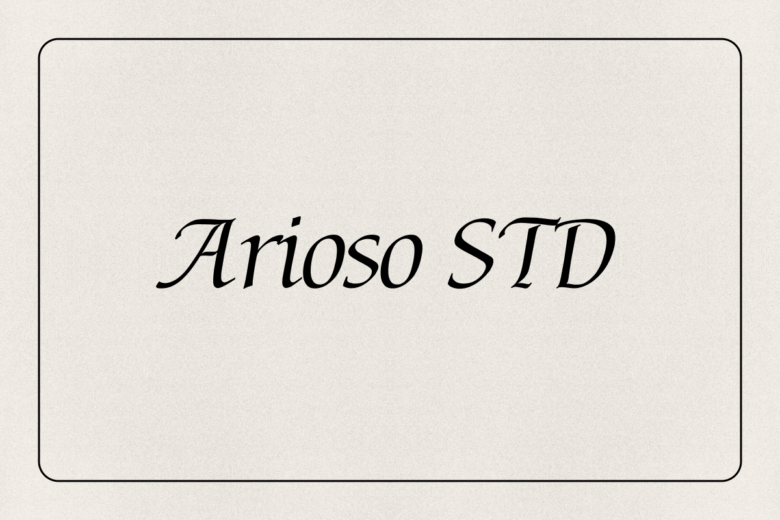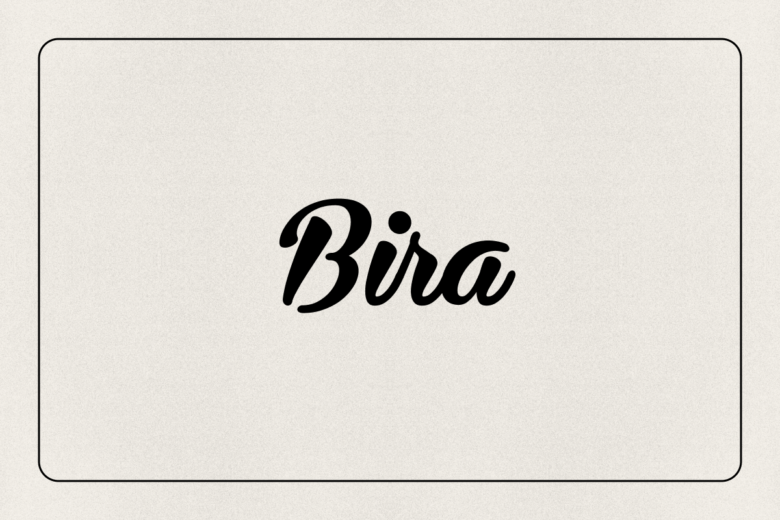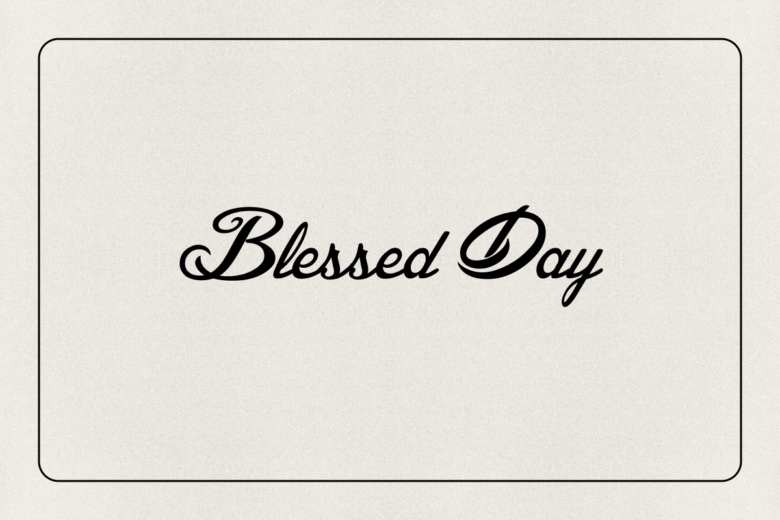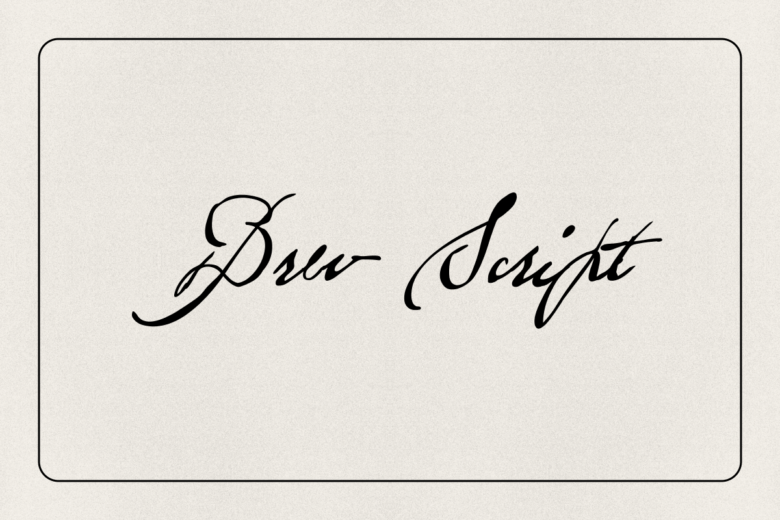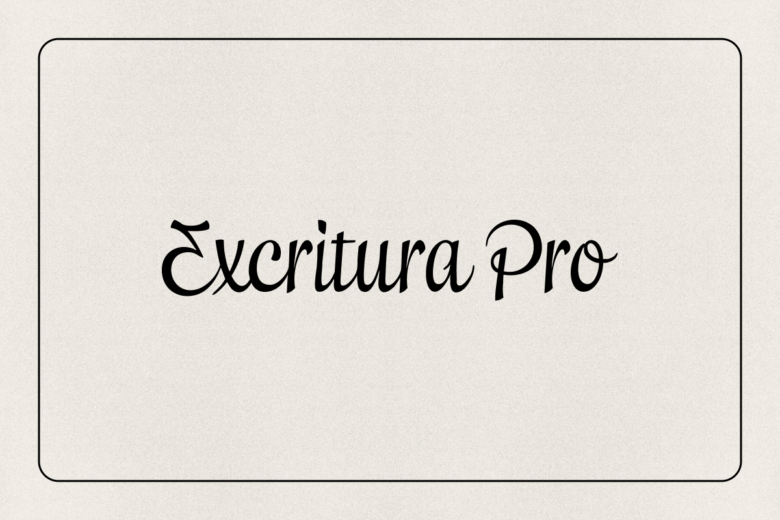
It can be tough to find the right calligraphy font. There are so many options out there, and it can be overwhelming to decide which one is best for your project. Some are too fancy, while others aren’t fancy enough.
In this guide, we will cover everything you need to know about calligraphy fonts – from their history and characteristics to how to choose the perfect font for your project.
What are calligraphy fonts?
Calligraphy fonts are typefaces that mimic handwritten calligraphy. These fonts have a unique and elegant style that makes them stand out from traditional typefaces. They feature flourishes, decorative elements, and varying stroke widths that give them a handcrafted look. Calligraphy fonts are commonly used in projects where an artistic touch is desired, such as wedding invitations, event posters, or branding materials.
Characteristics of calligraphy fonts
There are several features that make calligraphy fonts unique:
• Flourishes: These are decorative elements that extend from letters or words, adding an ornamental touch to the font.
• Varying stroke widths: Unlike traditional fonts where all strokes are the same width, calligraphy fonts have varying thicknesses which make them look more natural and hand-drawn.
• Serifs or sans serifs: Calligraphy fonts can be either serif or sans-serif. Serifs are small lines at the ends of letters, while sans serifs do not have these extra lines.
• Legibility: While some calligraphy fonts may sacrifice legibility for aesthetics, most modern calligraphy fonts are designed to be both beautiful and readable.
15 beautiful calligraphy fonts to use in your next design
1. Murray Hill BT
Murray Hill is a playful yet sophisticated script font that feels like a lively conversation at a stylish 1950s cocktail party. Its looping, exaggerated letterforms and flowing baseline give it a whimsical charm, while its slightly condensed structure keeps it elegant and legible. With a touch of mid-century flair, Murray Hill is perfect for adding personality to invitations, boutique branding, or retro-inspired designs. Use this font.
2. Remachine Script
Remachine Script is bold, fast, and full of attitude—like the signature of a rockstar scrawled across a backstage pass. With its sleek, connected letterforms and dynamic slant, this font exudes energy and confidence, making it perfect for logos, sports branding, or anything that needs a punch of rebellious flair. Use this font.
3. Arioso STD
Arioso STD is pure elegance in motion. A calligraphic script that dances across the page with effortless grace. Its fluid strokes and delicate flourishes evoke the charm of a handwritten love letter or a beautifully penned wedding invitation. Each letter feels intentional, crafted with the precision of a master calligrapher yet retaining a natural, free-flowing rhythm. Use this font.
4. Stilla LT
Stilla LT is where elegance meets eccentricity, a high-fashion serif with dramatic curves and a bold personality. Its voluptuous letterforms and exaggerated, almost liquid-like serifs create a sense of movement, making every word feel like it’s dripping with style. Playful yet poised, Stilla LT commands attention in luxury branding, magazine covers, and avant-garde designs that dare to be different. Use this font.
5. Lakesight
Lakesite isn’t just a font—it’s a statement. A masterful blend of vintage charm and modern precision, its bold strokes and flowing script command attention without shouting. This is the font of trust, of craftsmanship, of brands that stand the test of time. Whether on a bespoke leather label, a craft whiskey bottle, or the storefront of a heritage brand, Lakesite doesn’t just tell a story—it sells one. Use this font.
6. Mardian Pro
Mardian Pro is where artistry meets attitude, a script font that flows like an elegant brushstroke but carries the bold confidence of a signature on a masterpiece. Its sweeping curves and dramatic flourishes give it a handcrafted, almost rebellious edge, making it perfect for branding that wants to feel both refined and untamed. Use this font.
7. Blessed Day
Blessed Day is all about charm and warmth—a script that feels like a heartfelt note penned on a sun-drenched afternoon. Its delicate, flowing letterforms carry a touch of vintage nostalgia, reminiscent of handwritten letters, wedding vows, or an old journal filled with treasured memories. With just the right balance of elegance and informality, Blessed Day is perfect for invitations, boutique branding, or anything that needs a personal, handcrafted touch. Use this font.
8. The Dreamer
The Dreamer is poetry in motion, a script font that feels like a whisper of creativity on the page. Its flowing strokes and airy curves give it a sense of effortless elegance as if each letter were penned with a graceful hand and a touch of imagination. Soft yet expressive, this font is perfect for wedding invitations, inspirational branding, or anything that calls for a romantic, handcrafted feel. Use this font.
Conclusion
Calligraphy fonts bring a timeless elegance to any design, whether you’re creating wedding invitations, branding materials, or eye-catching social media posts. With so many styles to choose from—ranging from flowing, romantic scripts to bold, expressive hand-lettering—there’s a calligraphy font to match every creative vision.
As you explore these fonts, remember to consider their legibility, stroke variation, and how they pair with other typefaces. The right calligraphy font can elevate your design, making it feel polished, professional, and uniquely yours.